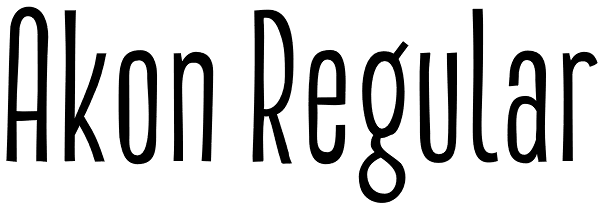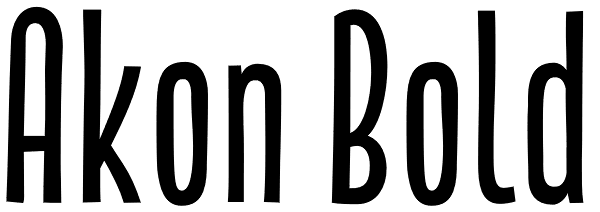
Akon
Akon Font Family comes in 2 weights; Regular and Bold. It is completely hand-drawn. The Akon Font Family has a few ornaments and stylistic alternates, ligatures, small capitals, Scientific Inferiors and so. This font family would fit in your mobile...
Akon Regular
Akon Bold